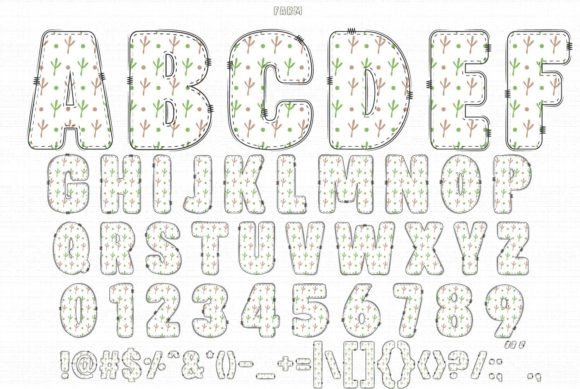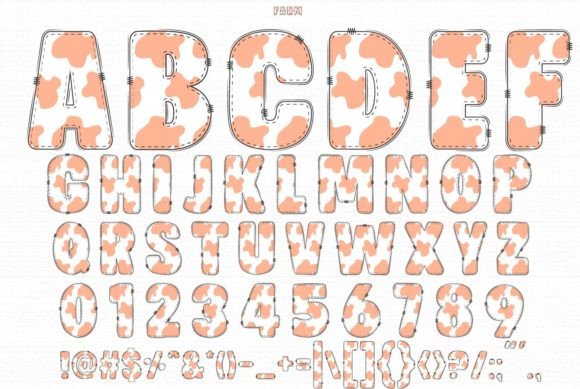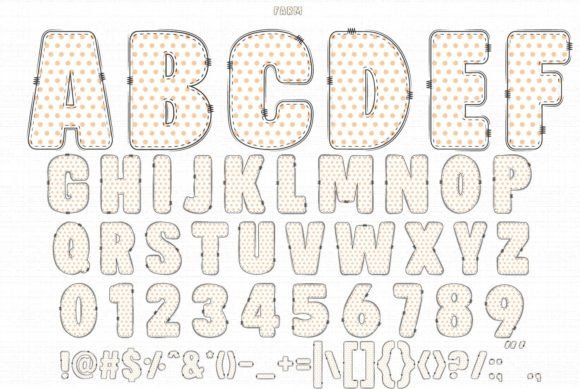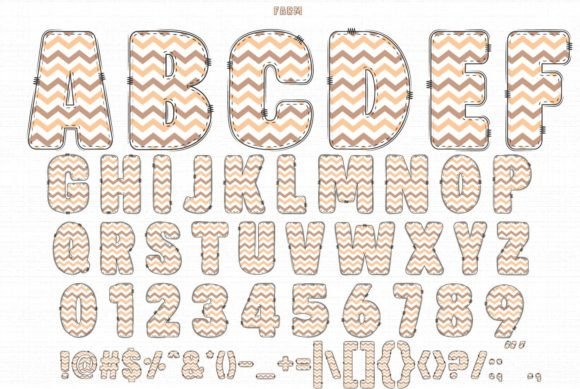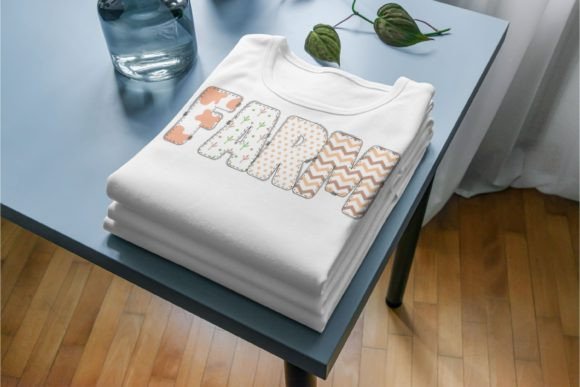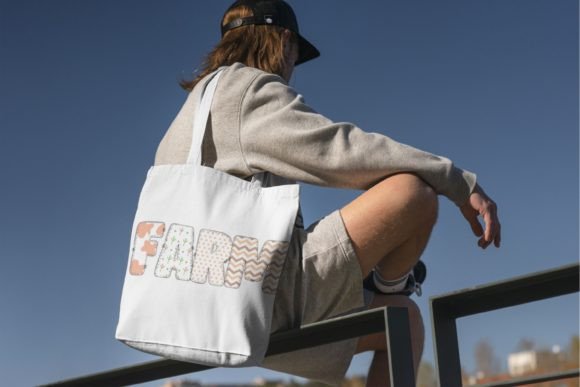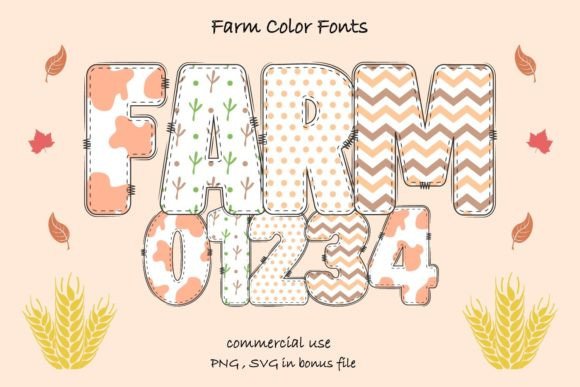
Introducing Our Farm Fonts Collection: Adding Rustic Charm to Your Designs
Are you looking for a way to add a touch of rustic charm to your designs? Look no further than our farm fonts collection! These beautiful fonts are inspired by the simplicity and beauty of the countryside, with a handcrafted and organic feel that’s perfect for a variety of creative projects. From logos and packaging to signage and marketing materials, our farm fonts are the perfect choice for designers and crafters who want to bring a unique and authentic vibe to their work.
The Beauty of Farm Fonts
Our farm fonts collection is designed to evoke the feeling of the countryside, with its rolling hills, rustic barns, and picturesque landscapes. Each font in the collection has been carefully crafted to capture the essence of farm life, with a focus on simplicity, elegance, and charm. Whether you’re working on a project for a farm or agricultural business, or simply want to add a touch of rustic charm to your designs, our farm fonts are the perfect choice.
Handcrafted and Organic Feel
One of the things that sets our farm fonts apart is their handcrafted and organic feel. Each font has been carefully designed to look like it was written by hand, with subtle imperfections and variations that give it a unique and authentic look. This makes our farm fonts perfect for designers and crafters who want to add a personal touch to their work, and create designs that stand out from the crowd.
Endless Possibilities
With our farm fonts collection, you’ll have endless possibilities to create stunning designs that capture the essence of farm life. From rustic signs and posters to elegant logos and packaging, our fonts can be used for a wide range of creative projects. And with a variety of styles and characters to choose from, you’ll be able to find the perfect font to match your design vision.
Tips for Using Our Farm Fonts
• Use our farm fonts to add a touch of rustic charm to your designs, and create a unique and authentic look.
• Experiment with different font styles and characters to find the perfect combination for your design.
Upgrade Your Typography Game
Key Features of Our Farm Fonts Collection
• Handcrafted and organic feel
• Inspired by the beauty of the countryside
• Perfect for logos, packaging, signage, and more
Font Name Farm Font
Author Meet At Horizon